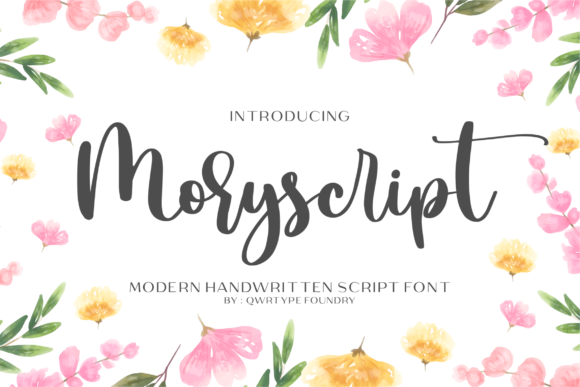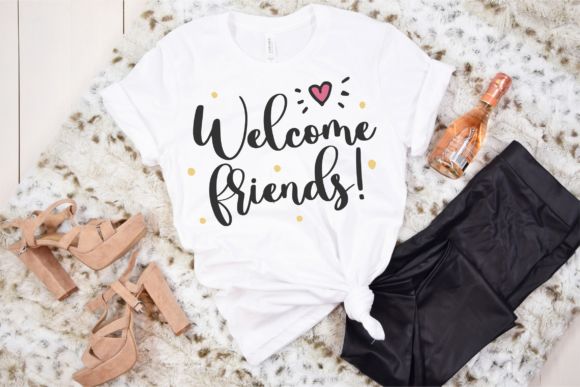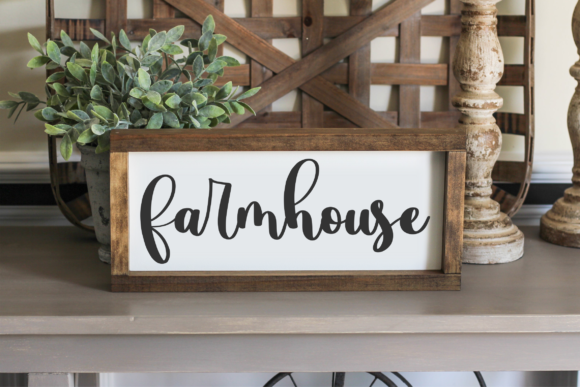
About Moryscript Font
Proudly Presenting, Moryscript.
Moryscript is a Modern Handwritten Script Font.
Moryscript is perfect for product packaging, branding project, magazines, social media, weddings, or just used to express words above the background.